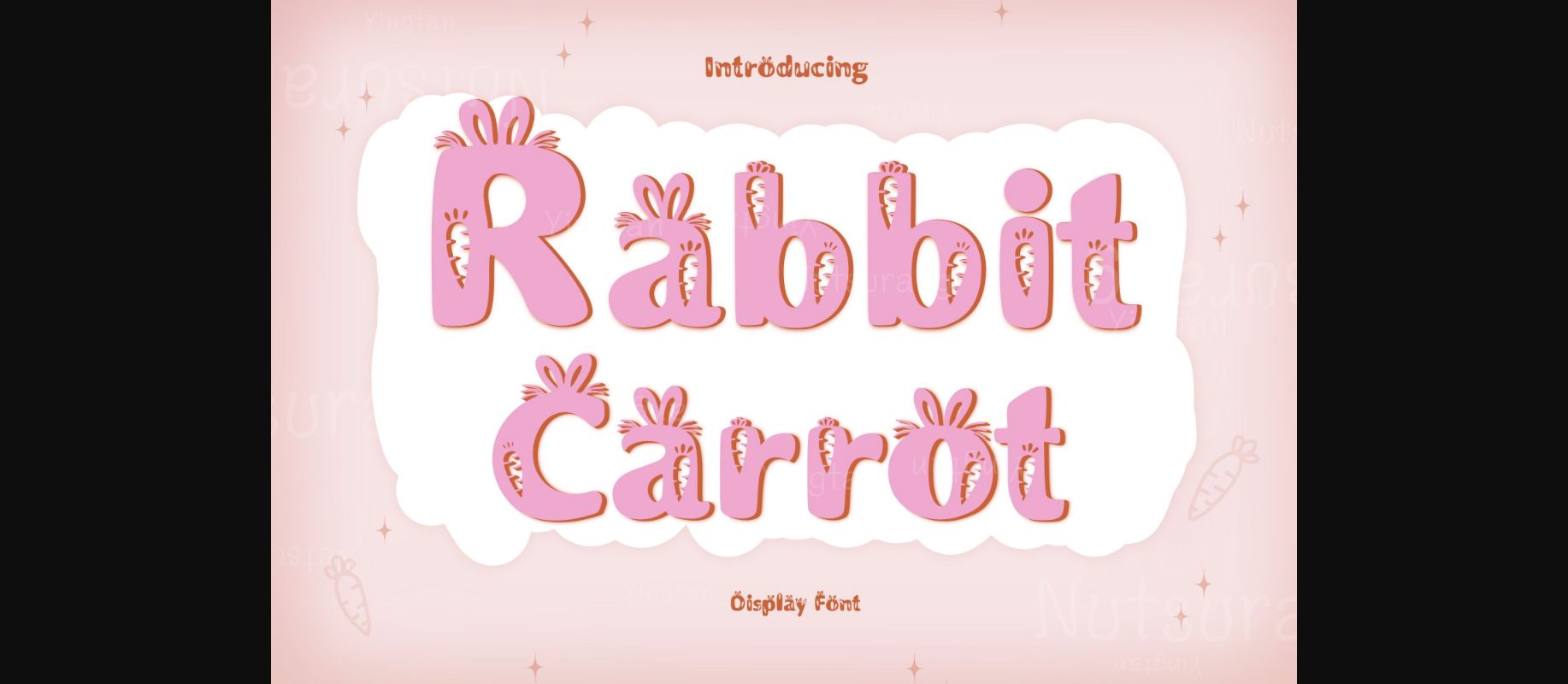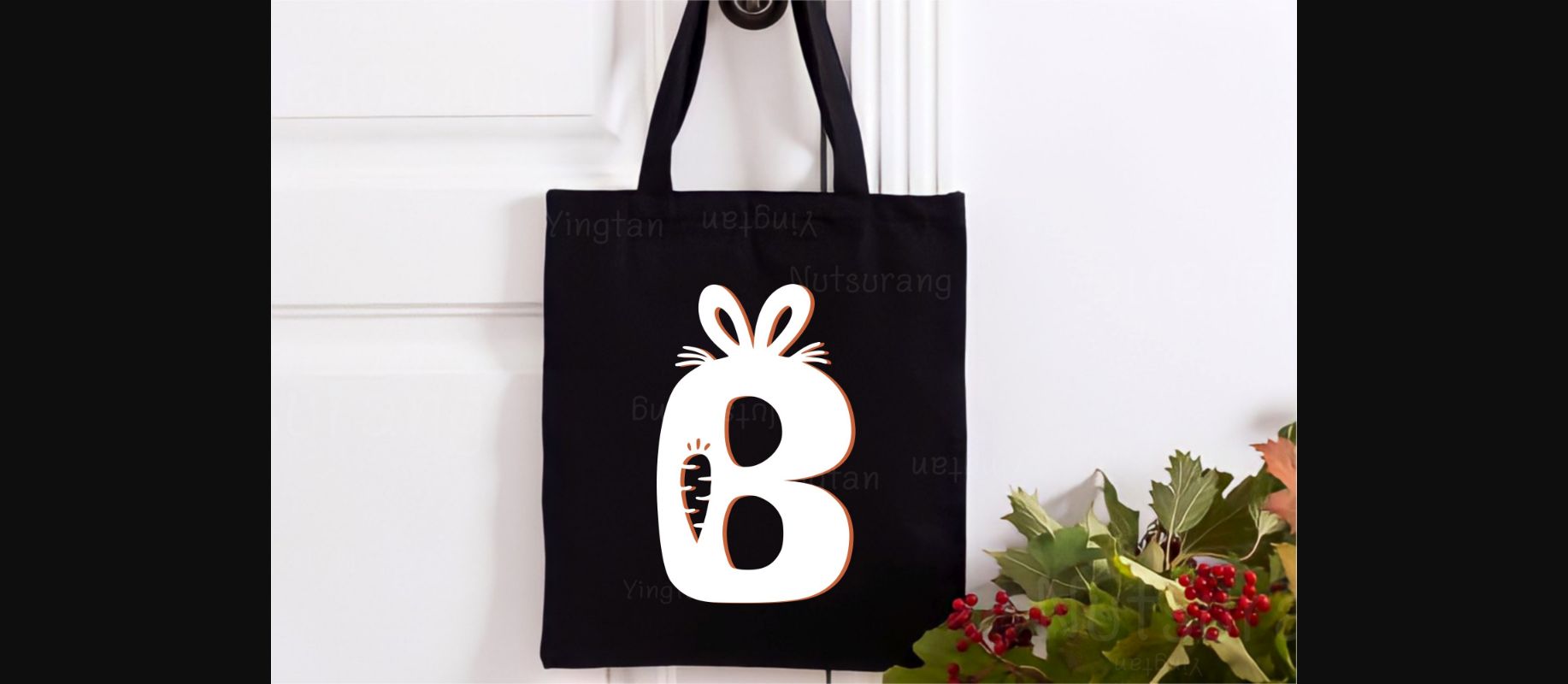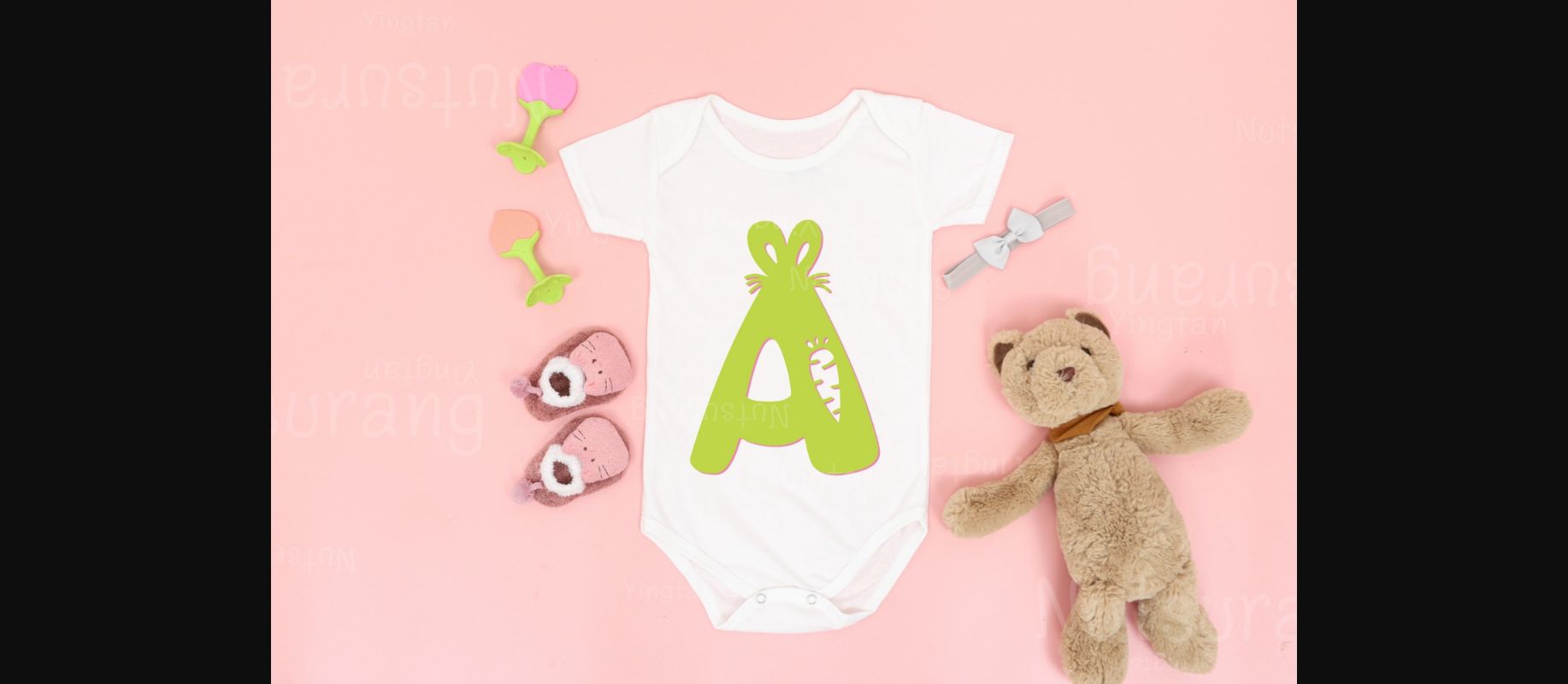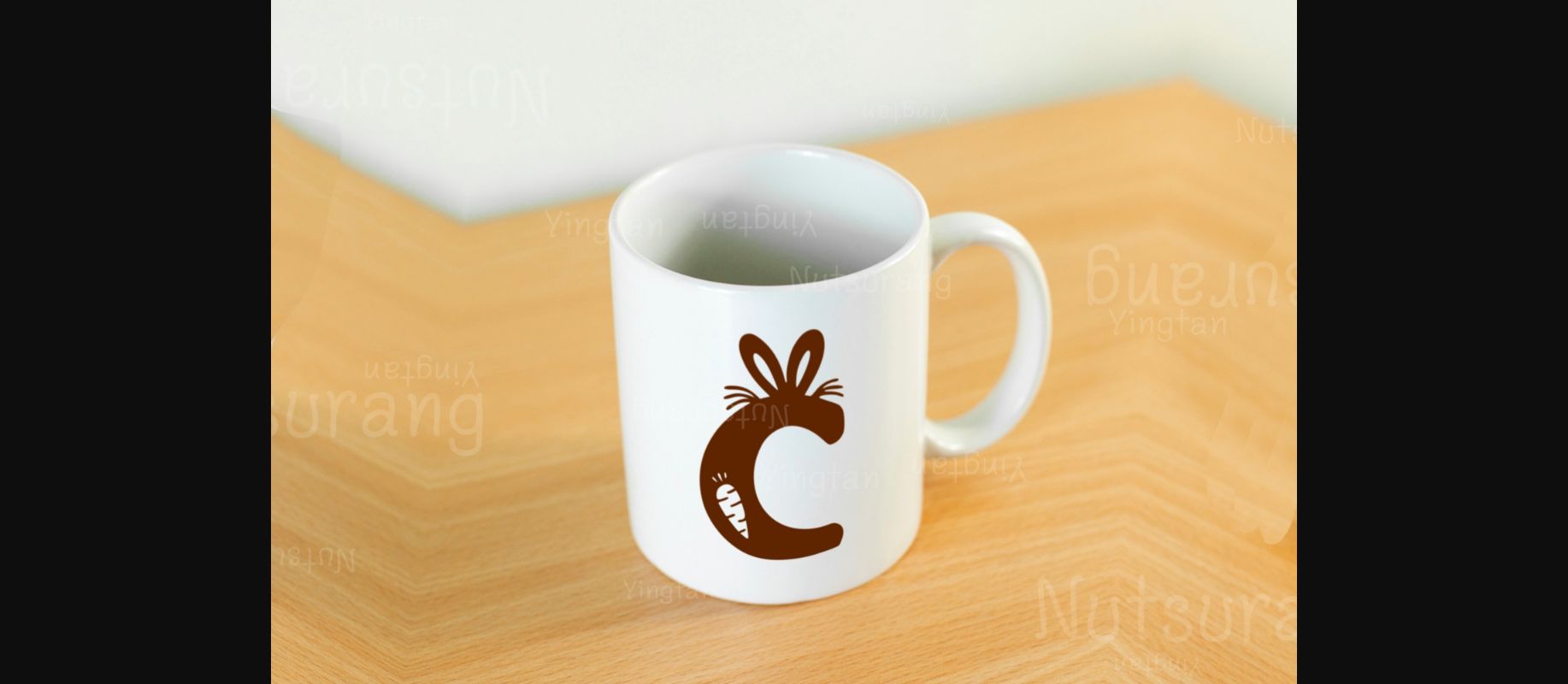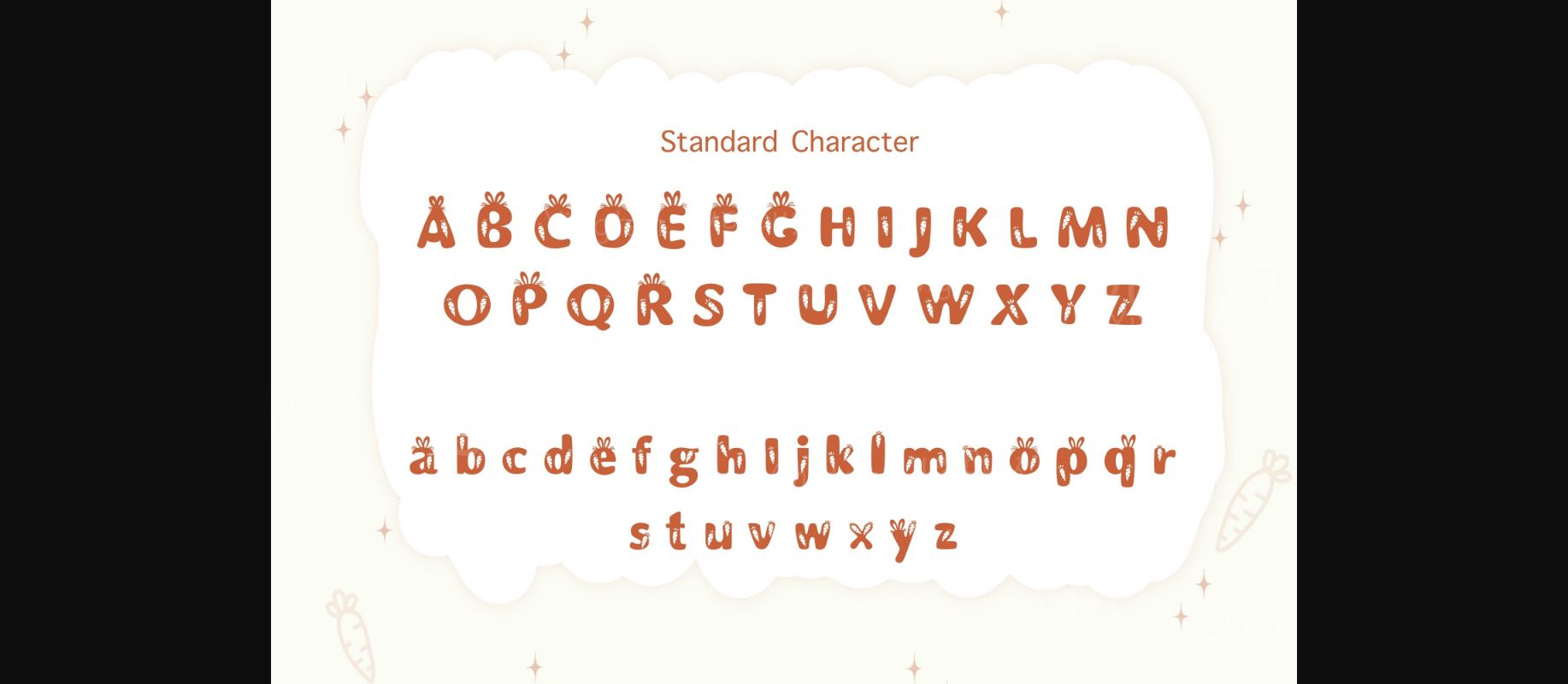
About Rabbis Carrot Font
Rabbis Carrot is a cool and original decorative font. This font is the perfect fit for all of your Easter logos, branding, social media, crafty DIY projects, and much more!